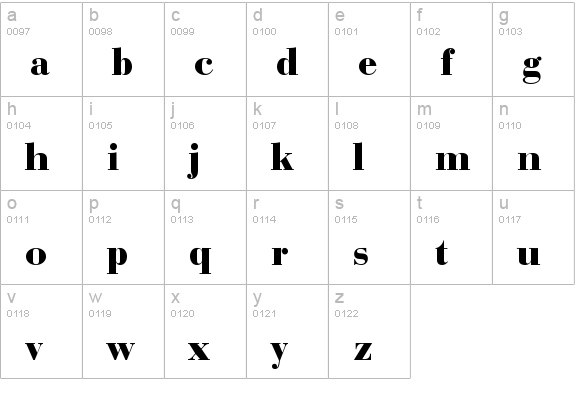
BauerBodoniEF-Bold Font Details
BauerBodoniEF-Bold is a strong, high-contrast variant in the BauerBodoniEF typeface family \xE2\x80\x94 well suited to headlines, attention-grabbing titles, and strong calls-to-action.
BauerBodoniEF-Bold font is a bold and striking typeface that exudes elegance and sophistication. With its strong and commanding presence, this font is perfect for making a statement in headlines, titles, and branding materials. The bold weight of the font adds a sense of power and authority to any design. What sets BauerBodoniEF-Bold font apart is that it is available for free download at FontsMarket.com. This means that designers and creatives can easily access this premium font without any cost, making it a valuable addition to any font library. Whether you're working on a print project, a website, or any other design, BauerBodoniEF-Bold font is sure to make a lasting impression.